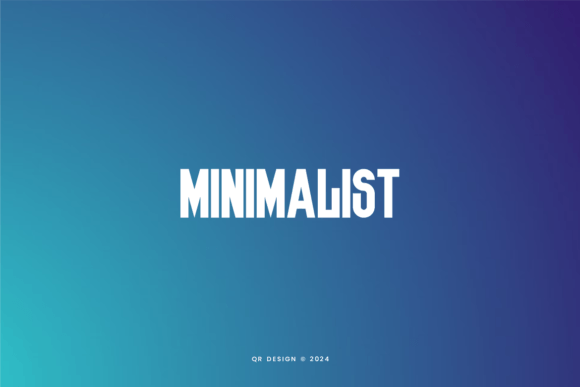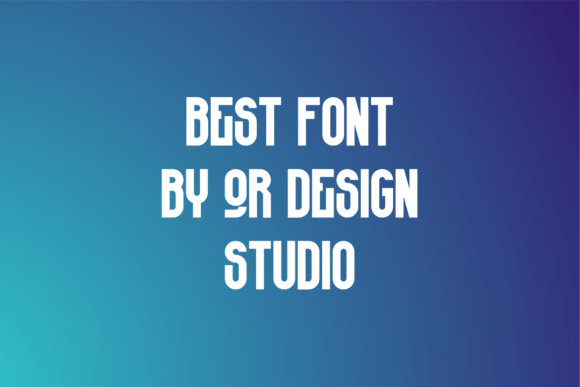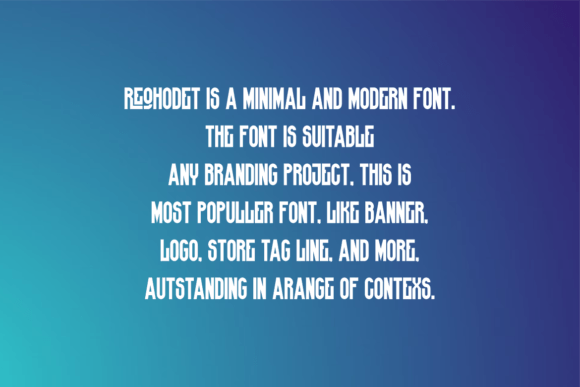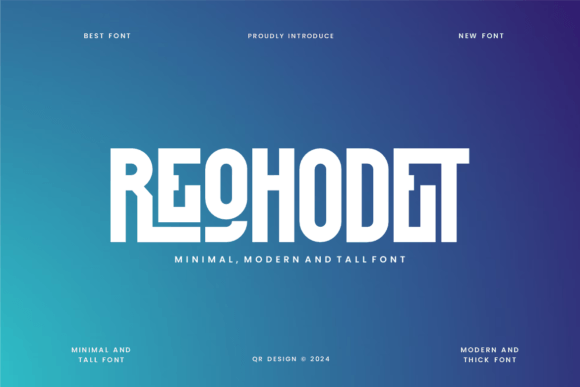
Reqhodet Font is a bold and authentic display font.
The font is suitable for any branding project like logo, sport, and many more Outstanding in a wide range of contexts.
Reqhodet Font offers exceptional quality and versatility, making it a valuable addition to your design toolkit. Whether you’re creating for personal projects or commercial use, Reqhodet Font delivers professional results.